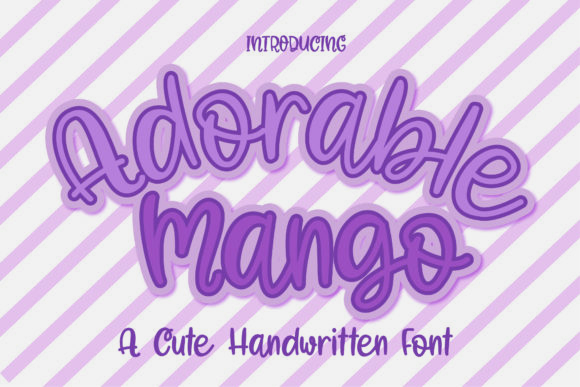
Step into the world of enchanting typefaces with our latest addition, the Adorable Mango Font. Crafted with a relaxed theme and lovely style, this script font is more than just a font; it's an enchanting journey into the realm of creativity.
Indulge your senses in the whimsical curves and elegant swashes of Adorable Mango. This font's captivating style is perfect for adding a touch of magic to your wedding invitations, personal branding, or any project yearning for a dash of delight.
With its enchanting aura, the Adorable Mango Font transforms ordinary words into enchanting tales. Imagine the joy of your recipients as they marvel at your wedding invitations, meticulously designed with this delightful font. Your brand will exude warmth and authenticity as if touched by a creative spell.
Whether you're a seasoned designer or a creative enthusiast, the Adorable Mango Font is your gateway to captivating designs. Its versatility empowers you to craft logos that dance off the page, social media posts that captivate your audience, and greeting cards that bring smiles to faces.
Life's too short for dull fonts. Embrace the magic of the Adorable Mango Font and unveil the enchanting power of typography. Let your creativity blossom as you weave captivating stories through your designs.